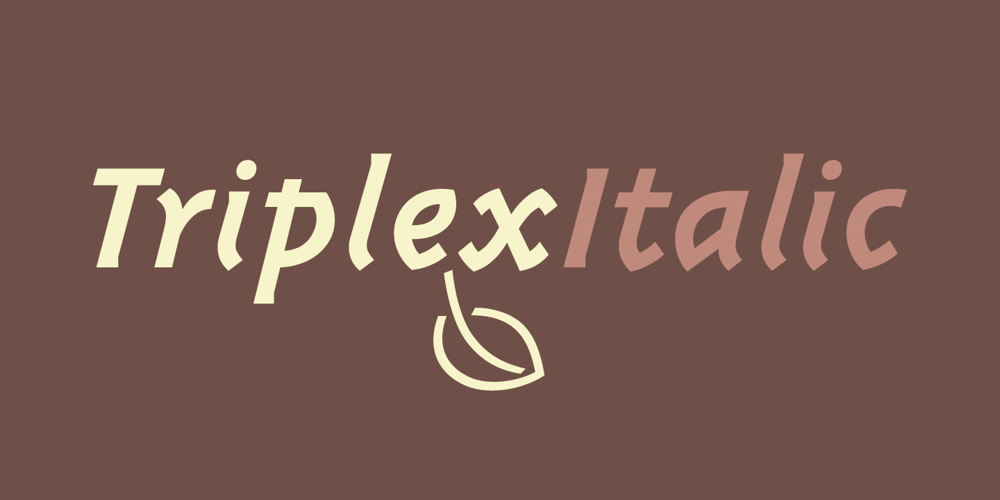
Triplex Italic
Triplex Italic font
Triplex Italic Font Family was designed by John Downer and published by Emigre. Triplex Italic contains 3 styles and family package options. The drawings, for what is now Triplex Italic, were done in Iowa City in 1985 by John Downer. The italic was originally conceived as a companion for another typeface being drawn at the same time called Arcatext, which (like Triplex) could be described as a “humanist sans-serif” having simplified character shapes constructed mostly of geometric parts. At one stage, a certain customer was interested in Arcatext but wanted a different italic drawn for it, so the plan for the italic took another direction and the idea for this one was dropped. Five years later, Emigre decided to commission the abandoned italic as a digital typeface in three weights as companions to the Triplex Sans and Serif families designed by Zuzana Licko in early 1990. The ascenders and descenders have been shortened to match those of Triplex and the new capitals embody more of the features that distinguish the lower case, but otherwise the digital version closely follows the original drawings. See also Triplex OT.